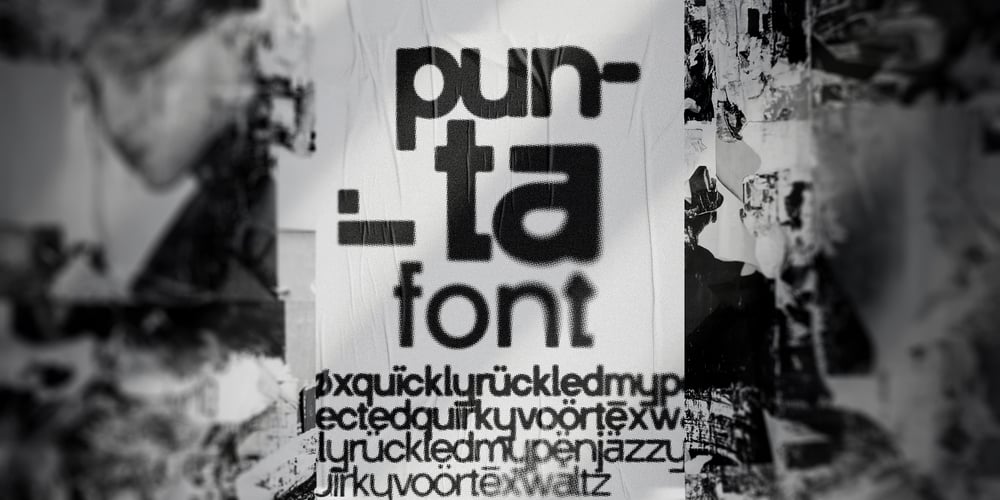
Punta
Punta font
Punta Font Family was designed by Tuna Ekici and published by Tunatypo. Punta contains 8 styles and family package options. Punta is a minimal, yet elegant sans serif font. Suitable for a wide variety of designs due to its neat and simple style, it has the potential to become your favourite go-to font, no matter the occasion!